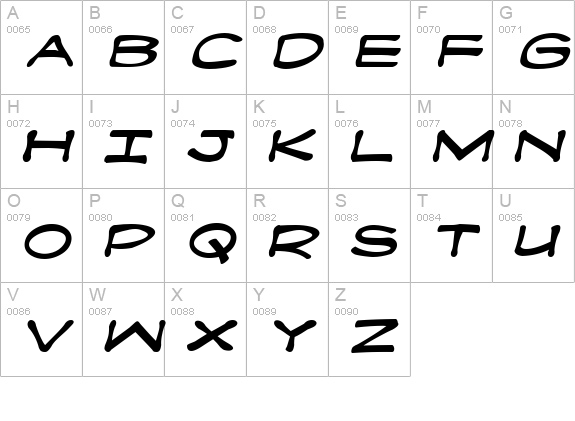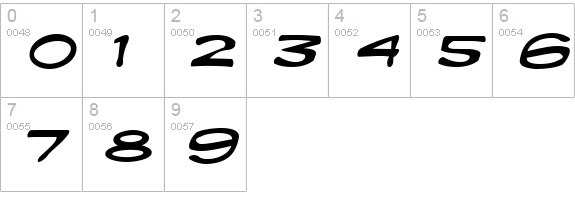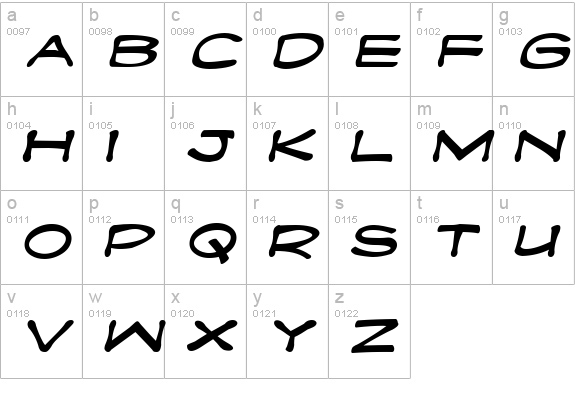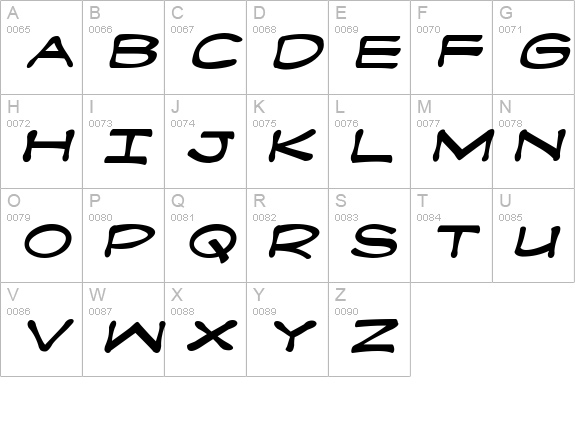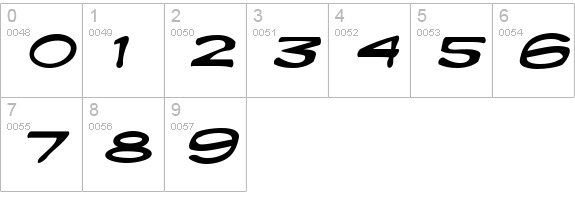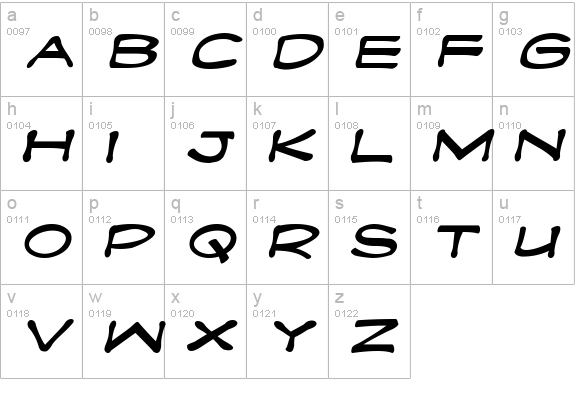
Fanboy Hardcore Italic Font Details
Fanboy Hardcore Italic is a distinctive, italic variant in the Fanboy typeface family \xE2\x80\x94 well suited to design and typography projects.
Fanboy Hardcore Italic font is a bold and energetic typeface designed for all the hardcore fanboys out there. With its unique italic style, this font exudes passion and enthusiasm, perfect for expressing your love for all things fandom-related. Embrace your inner fanboy with this eye-catching font that commands attention and makes a statement. Whether you're creating posters, social media graphics, or merchandise for your favorite fandom, Fanboy Hardcore Italic font will add an extra layer of excitement and intensity to your designs. The best part? Fanboy Hardcore Italic font is available for free download at FontsMarket.com. So go ahead and unleash your inner fanboy with this dynamic and expressive typeface that is sure to make your designs stand out from the crowd.